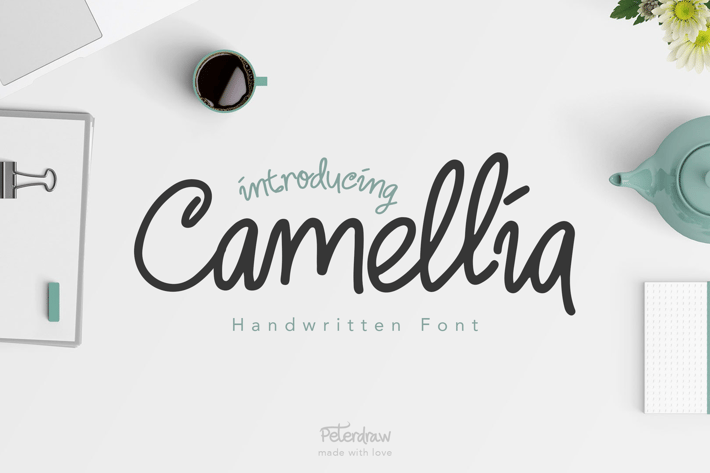
Camellia Handwritten Font
Introducing Camellia \
A handwritten font with fun and elegant feels. Camellia is perfect for branding projects, product packaging - or a stylish text overlay to any background image.
Camellia features: \
+ Font type with fun, elegant and clean character. It is perfect for the beauty and any clean layout.
+ 40+ handwriting ligatures
+ Uppercase & Lowercase letters
+ Numbering and Punctuation